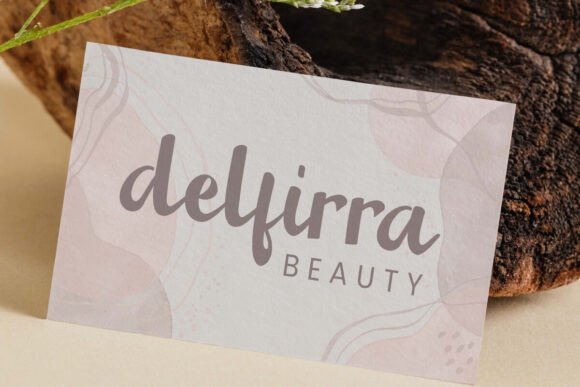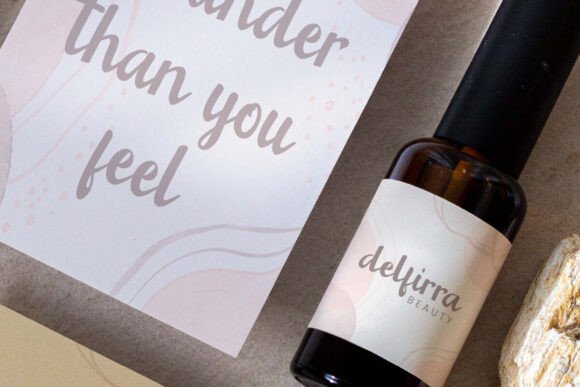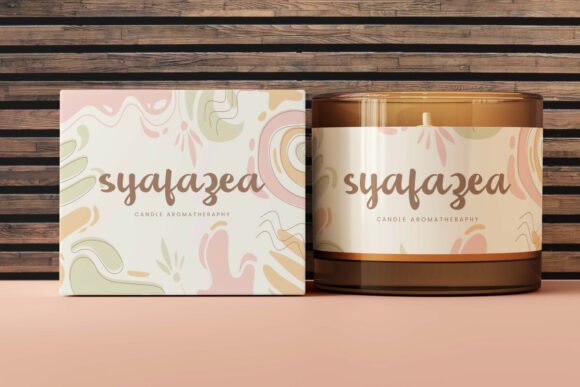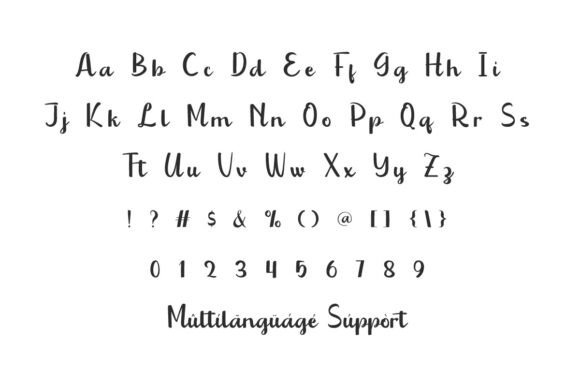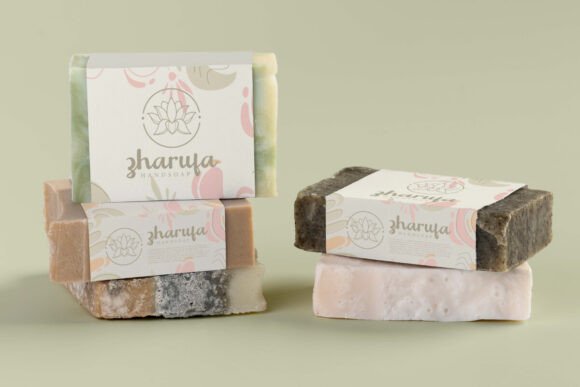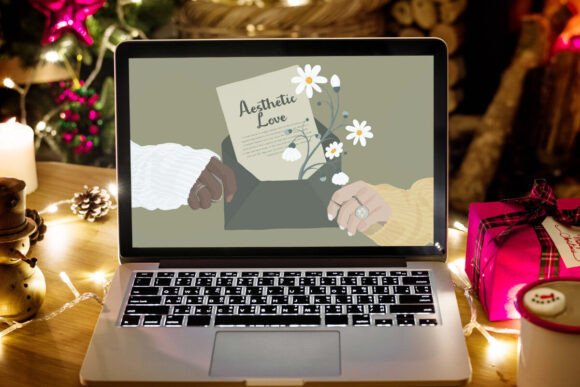
Love at First Sight: The Allure of Aesthetic Love Font
Have you ever found yourself scrolling through font collections, searching for that perfect script to elevate your design? The thrill of discovering a new font that sparks creativity is a sensation many designers know well. It’s a moment of pure joy, and for many, it’s the starting point of a beautiful collaboration between art and typography.
Enter the Aesthetic Love Font, a stunning script font with a calligraphy style that’s sure to capture your heart. Designed to inspire love at first sight, this font is perfect for a wide range of industries, from advertising and beauty products to cafés and fashion. With its elegant and refined look, the Aesthetic Love Font is a valuable addition to any designer’s toolkit.
Whether you’re a seasoned pro or a budding designer, the Aesthetic Love Font is a must-have for anyone looking to add a touch of sophistication and romance to their designs.
Aesthetic Love Font Key Features
- Unique Characteristics: The Aesthetic Love Font features a unique blend of elegant and playful elements, making it perfect for designs that require a touch of romance and whimsy.
Aesthetic Love Font Review
Overall, I think the Aesthetic Love Font is a lovely addition to any design project. ✨ It has a unique, hand-drawn quality that can add a touch of whimsy and personality to your work. The font is also highly customizable, making it a great choice for designers who want to create a consistent brand aesthetic.
- ✨ Unique, hand-drawn style that adds a touch of personality to designs
- ✨ Highly customizable, allowing for easy brand consistency
- ✨ Wide range of languages supported
- ✨ Works well in both print and digital formats
However, I do have a few concerns. ⚠️ The font can be a bit inconsistent, with some letters looking more polished than others. This can be a bit jarring to the eye, especially in large blocks of text. Additionally, the font may not be the best choice for highly technical or formal writing, as it can come across as a bit too casual.
Overall, I think the Aesthetic Love Font is a great choice for designers who want to add a touch of personality to their work. While it may have some limitations, it’s a versatile and highly customizable font that can be a great addition to any design project.